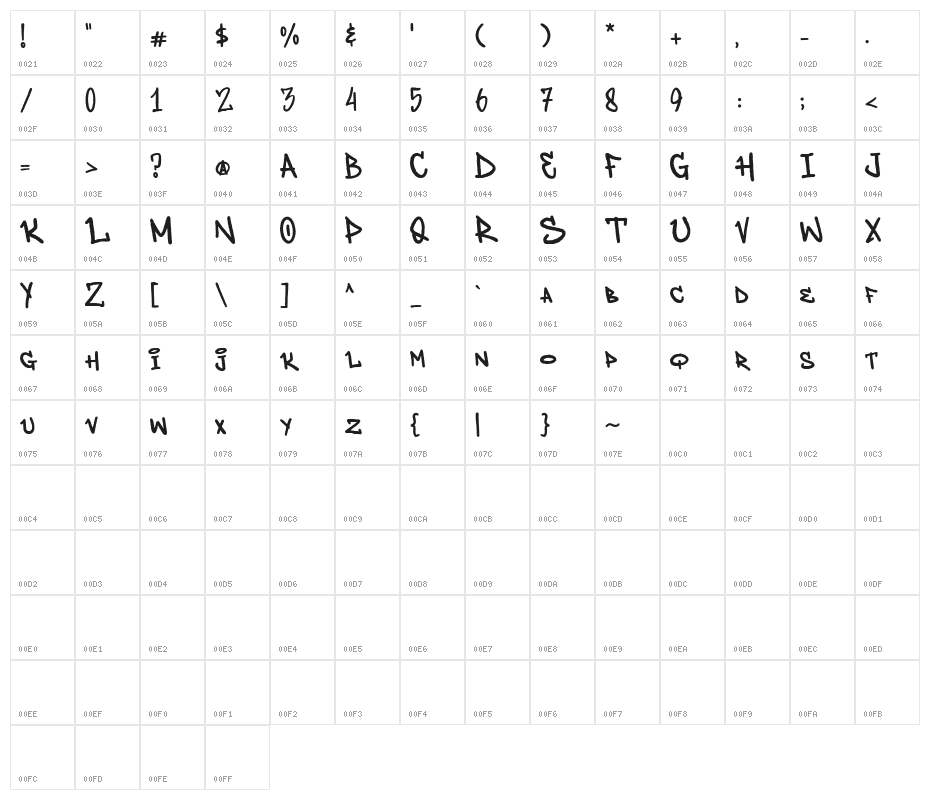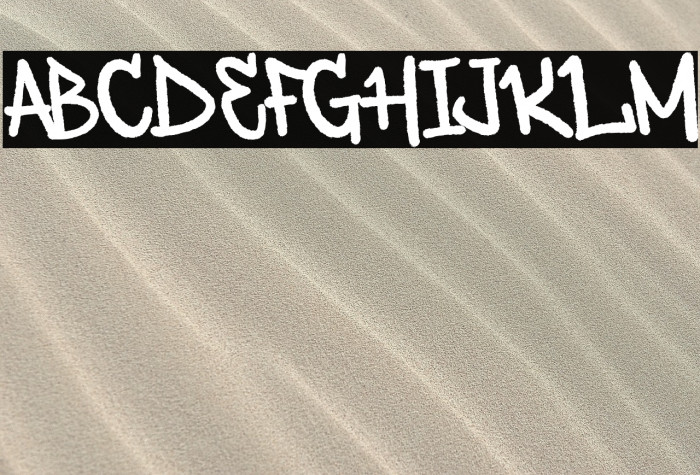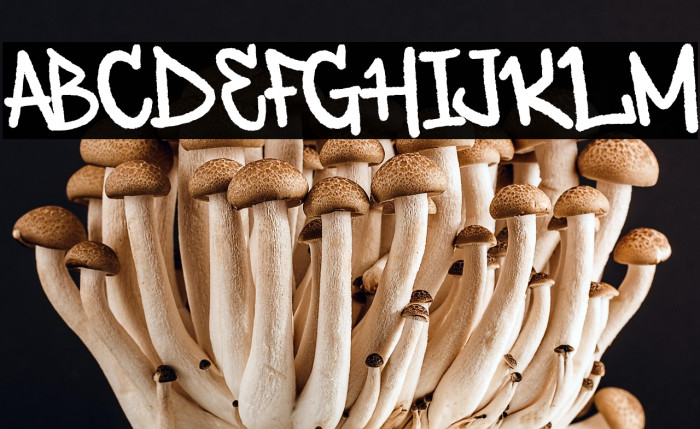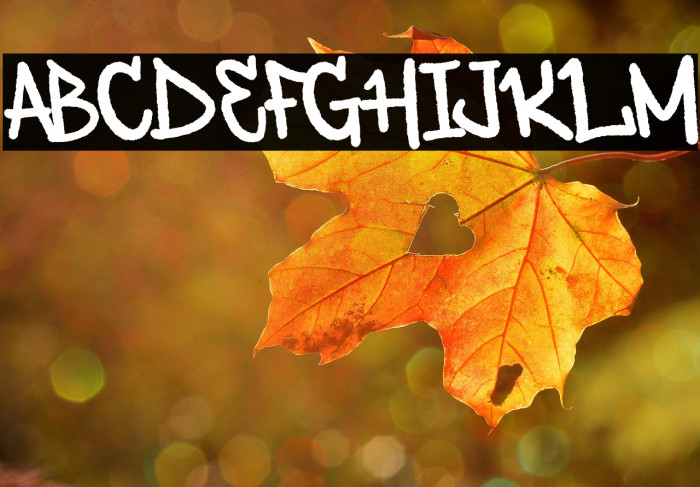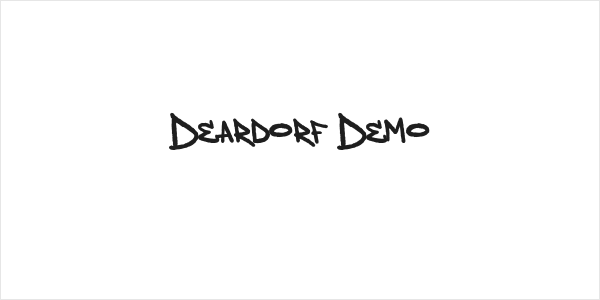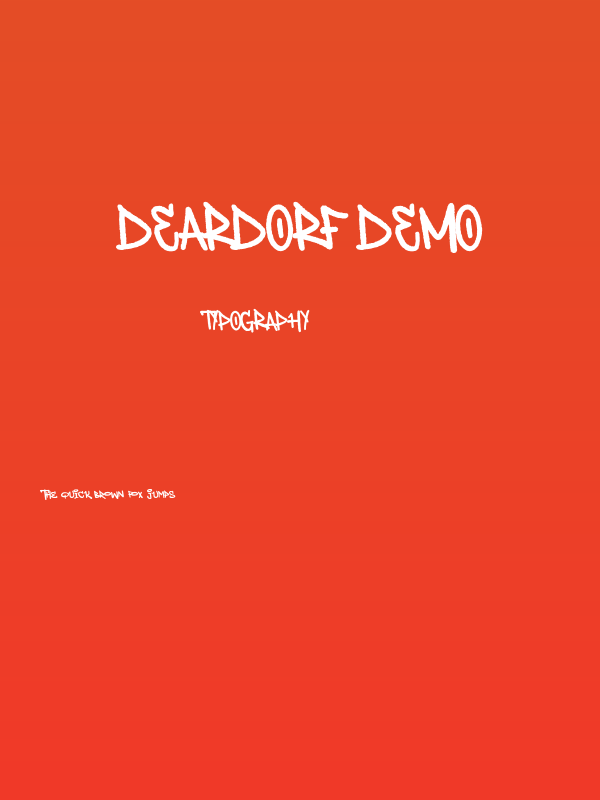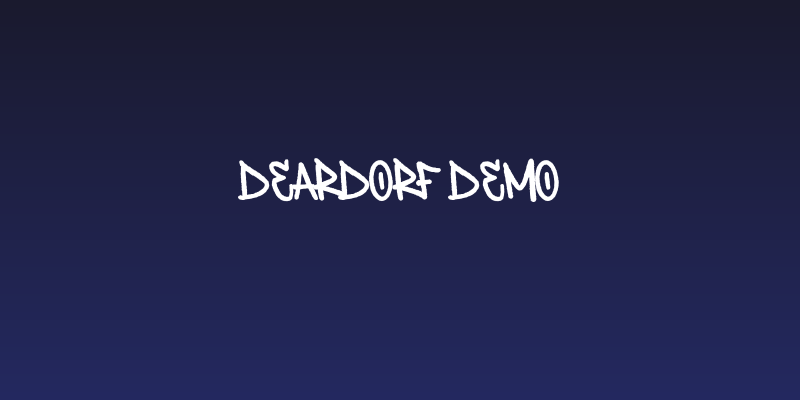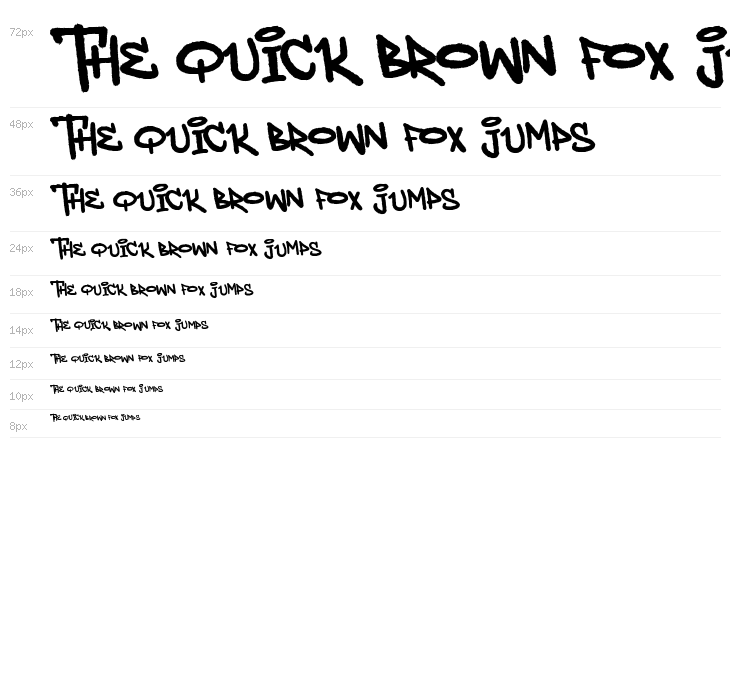
Deardorf Demo Font
Deardorf Demo Description
This font features a playful and dynamic handwritten style, characterized by its bold and slightly irregular strokes. The letters have a casual, informal appearance, with a sense of movement and energy. The uppercase and lowercase letters maintain a consistent style, with rounded edges and a slightly tilted orientation, adding to the font's whimsical charm. The numerals and special characters follow the same design principles, ensuring a cohesive look across all glyphs. This font is well-suited for projects that require a personal touch or a fun, engaging aesthetic.